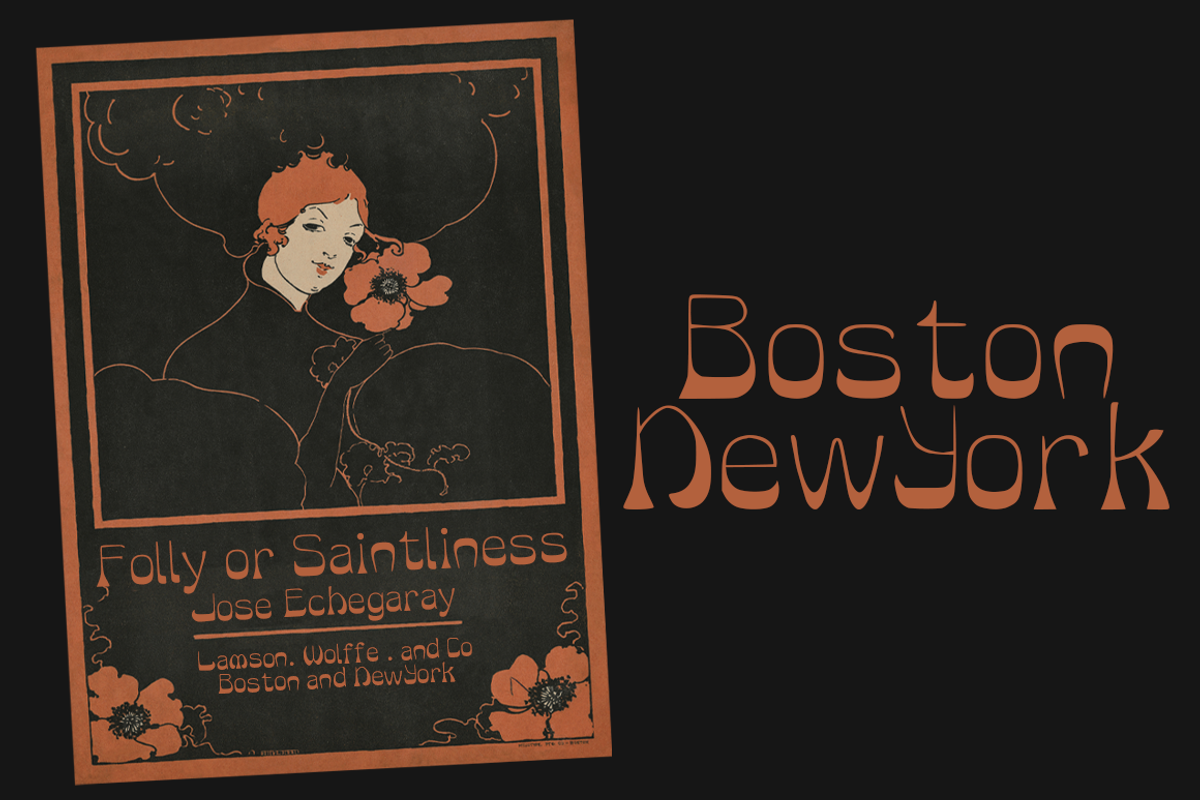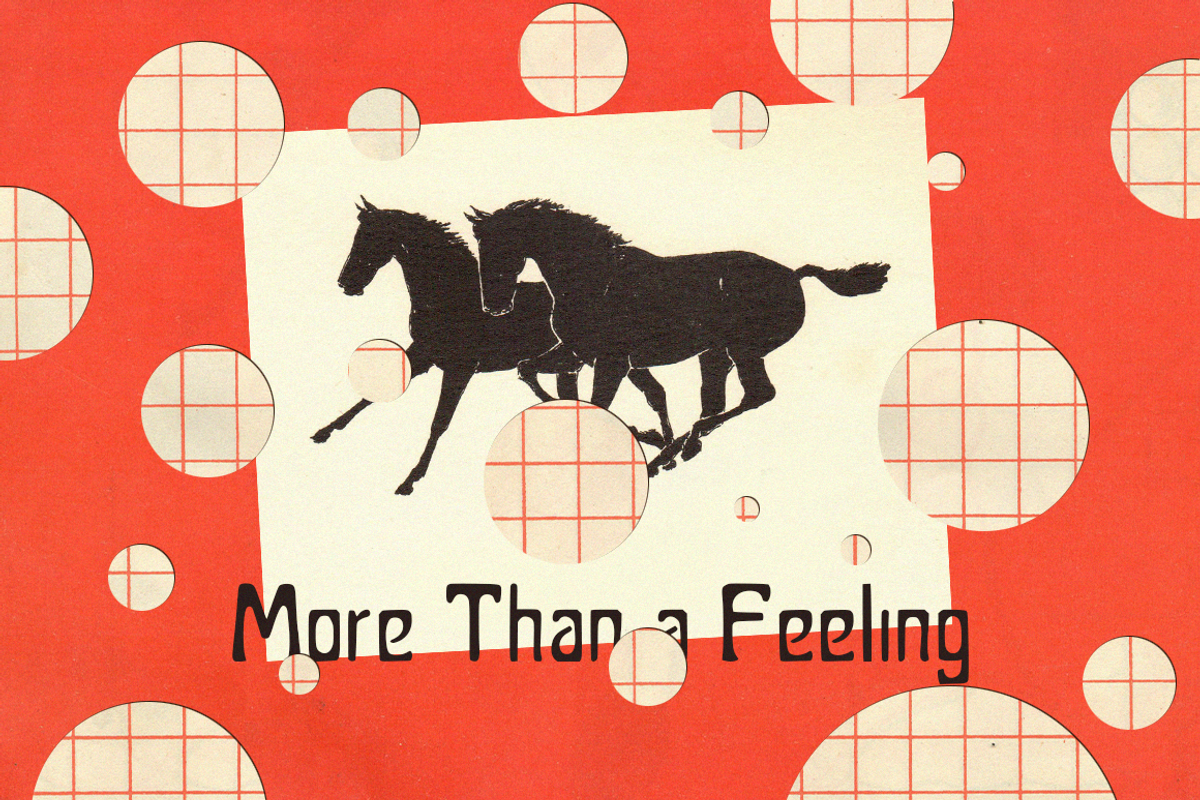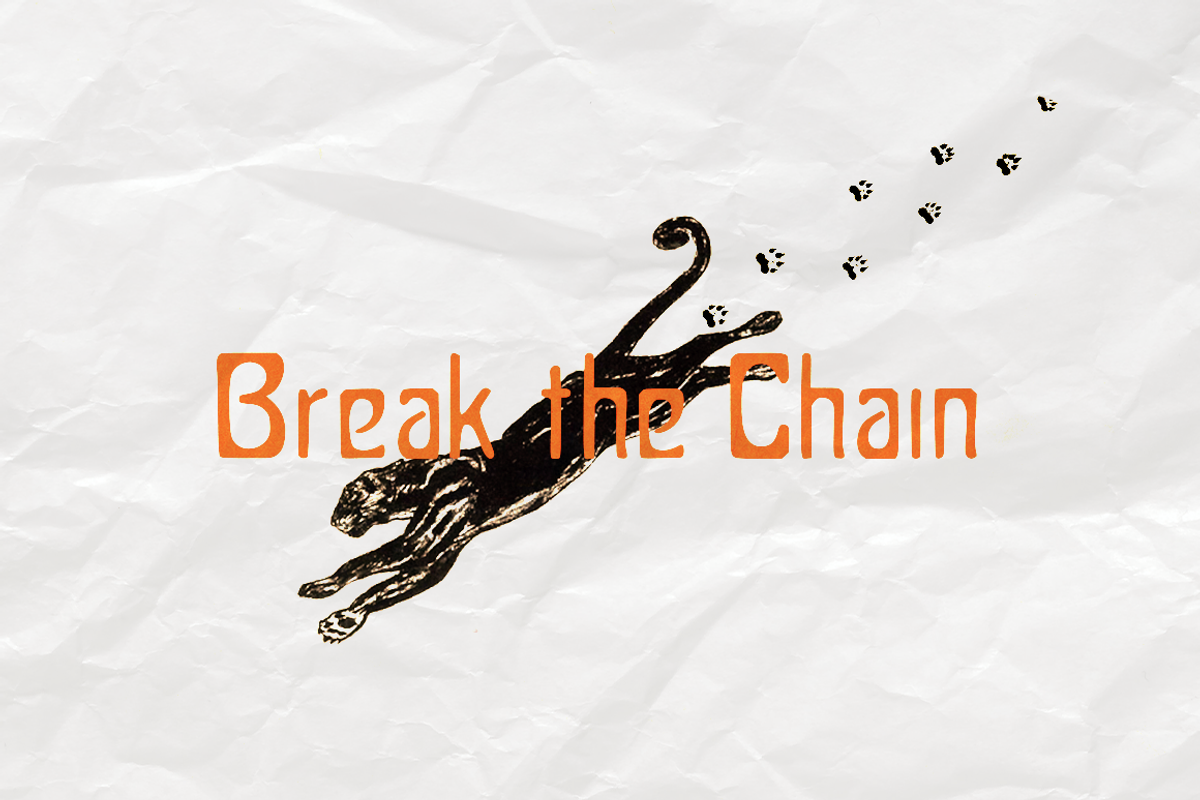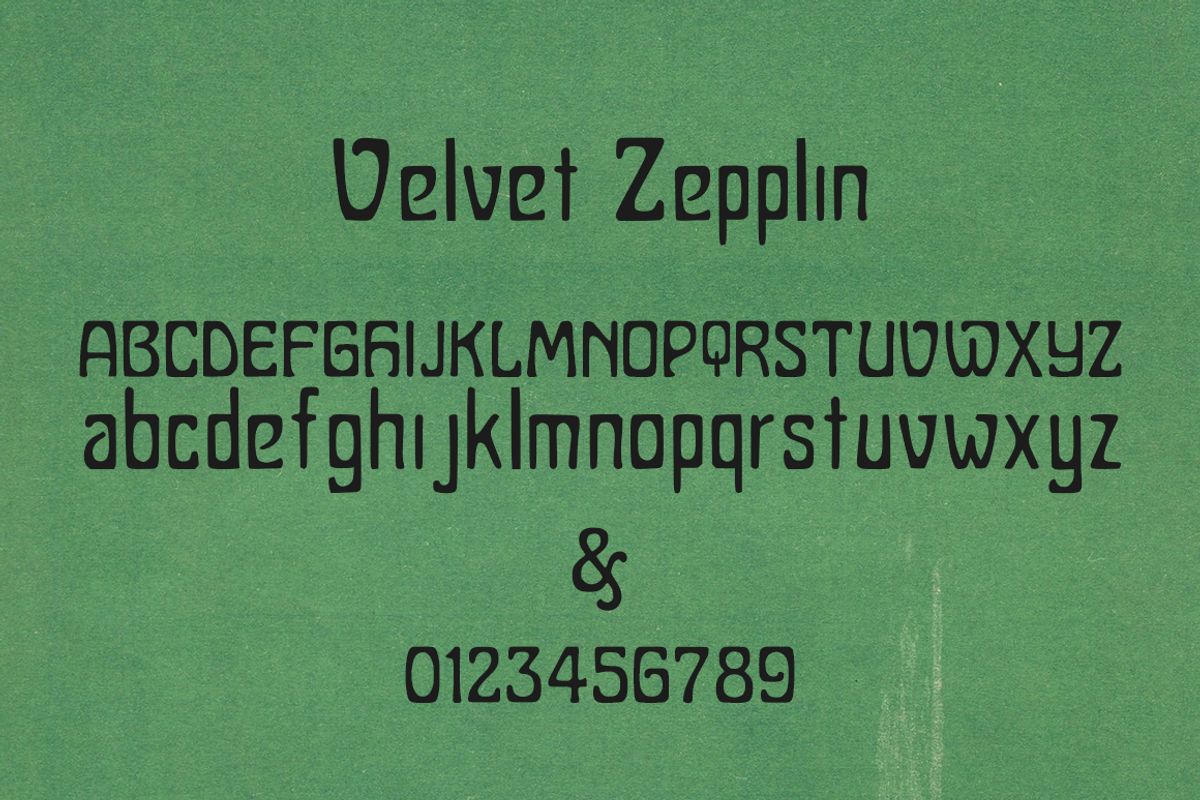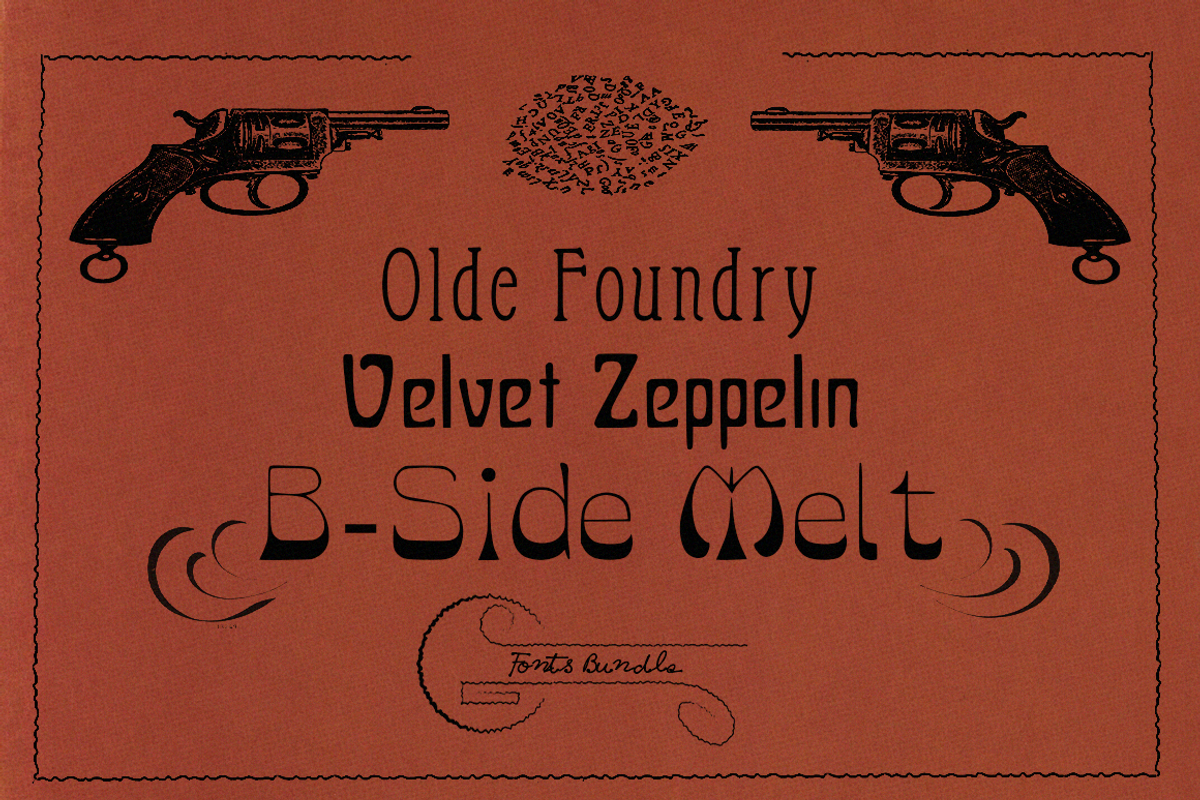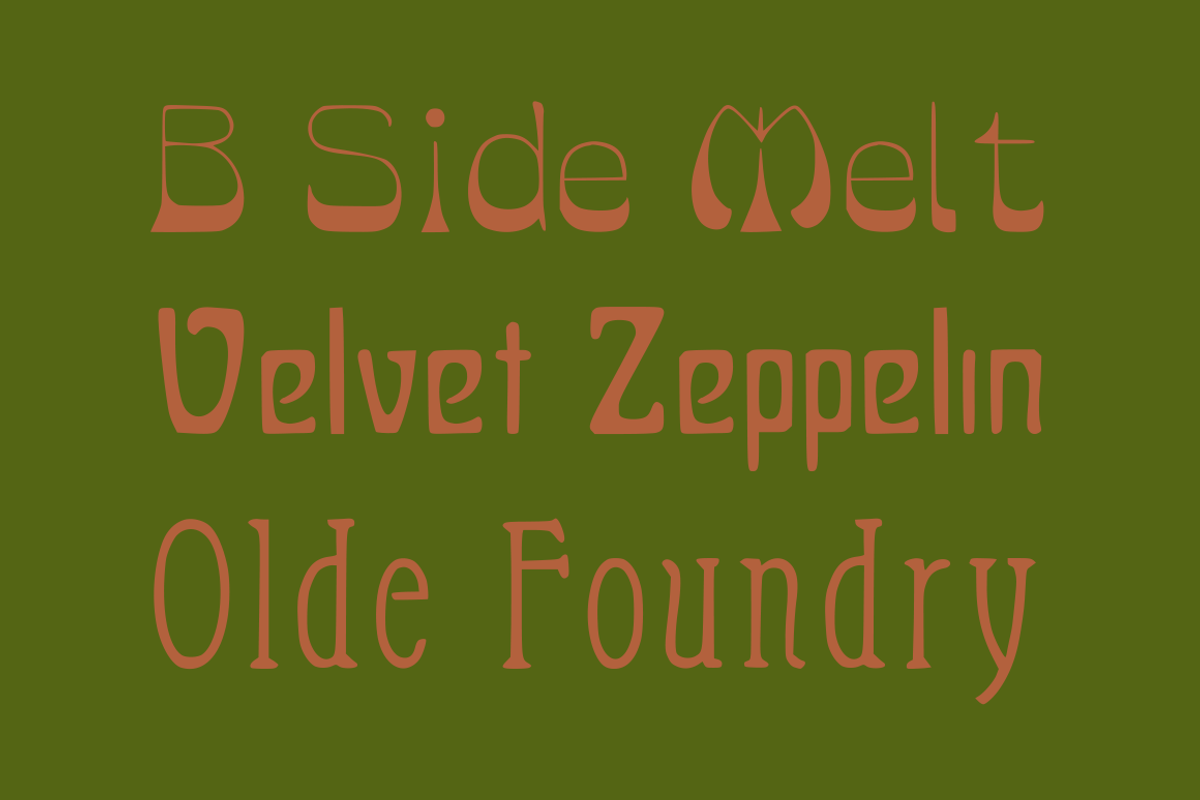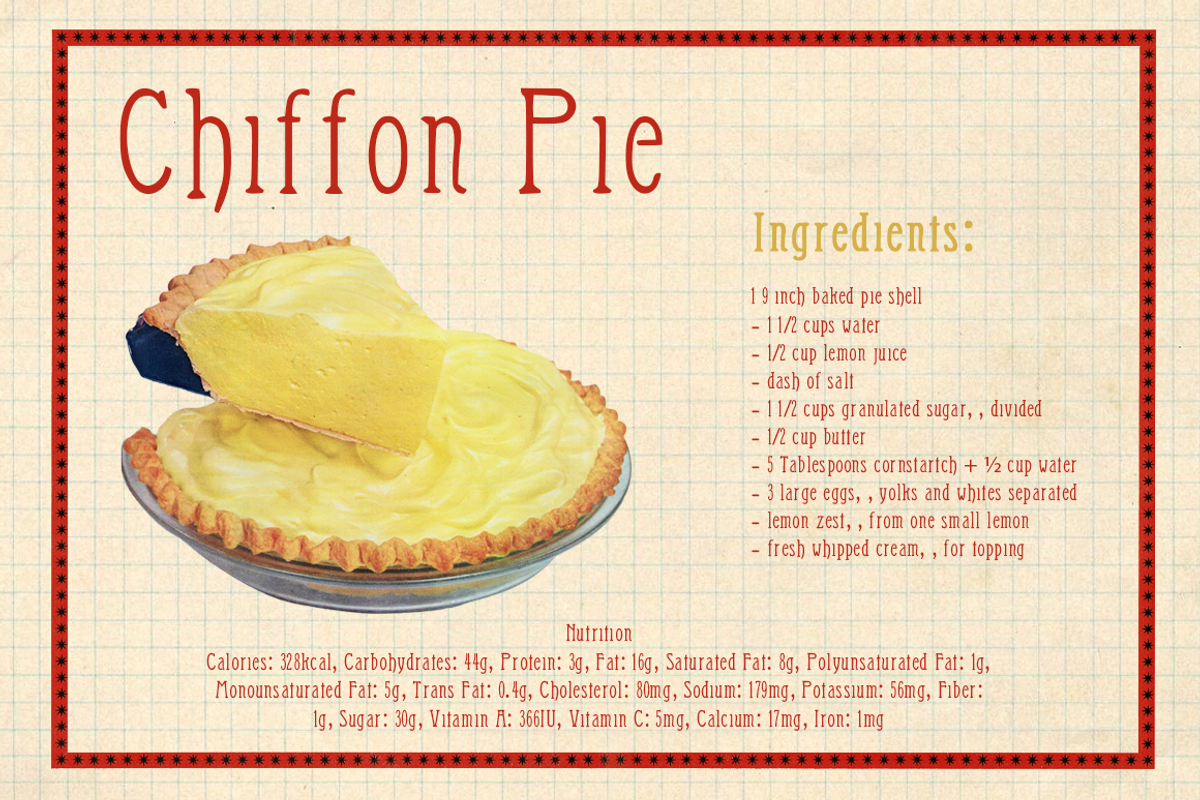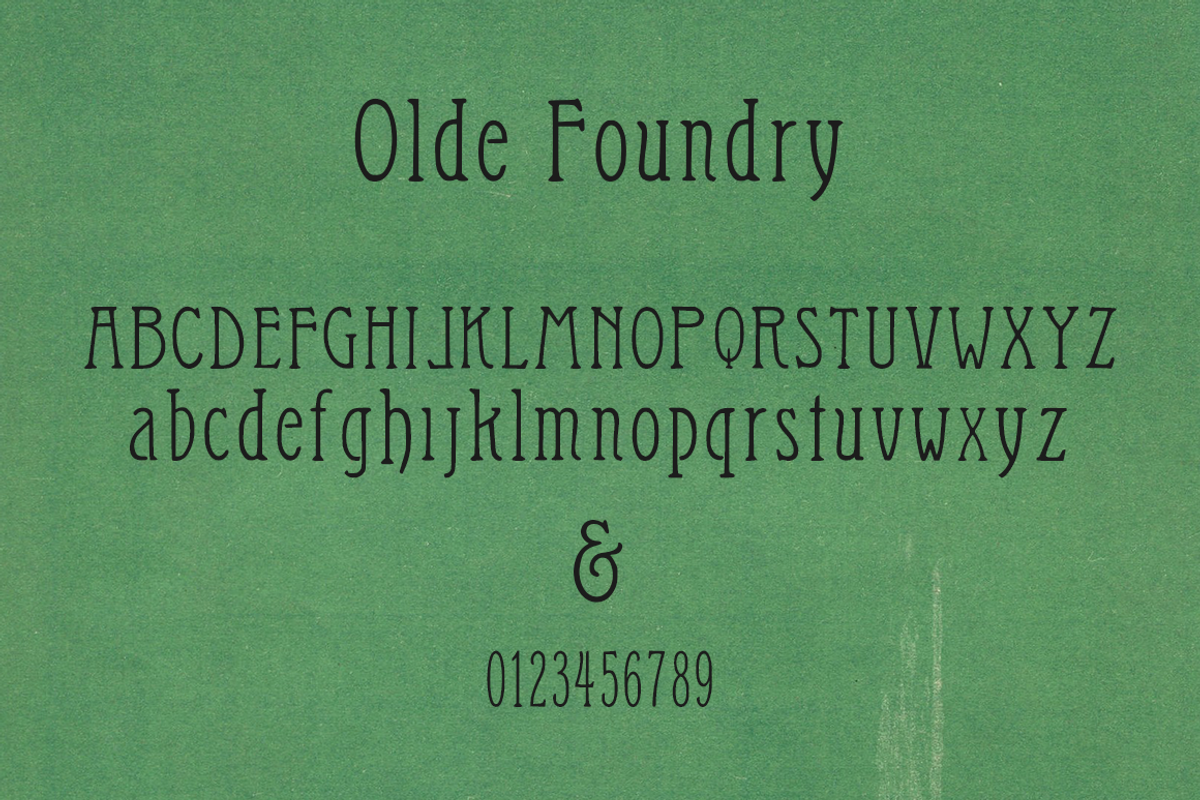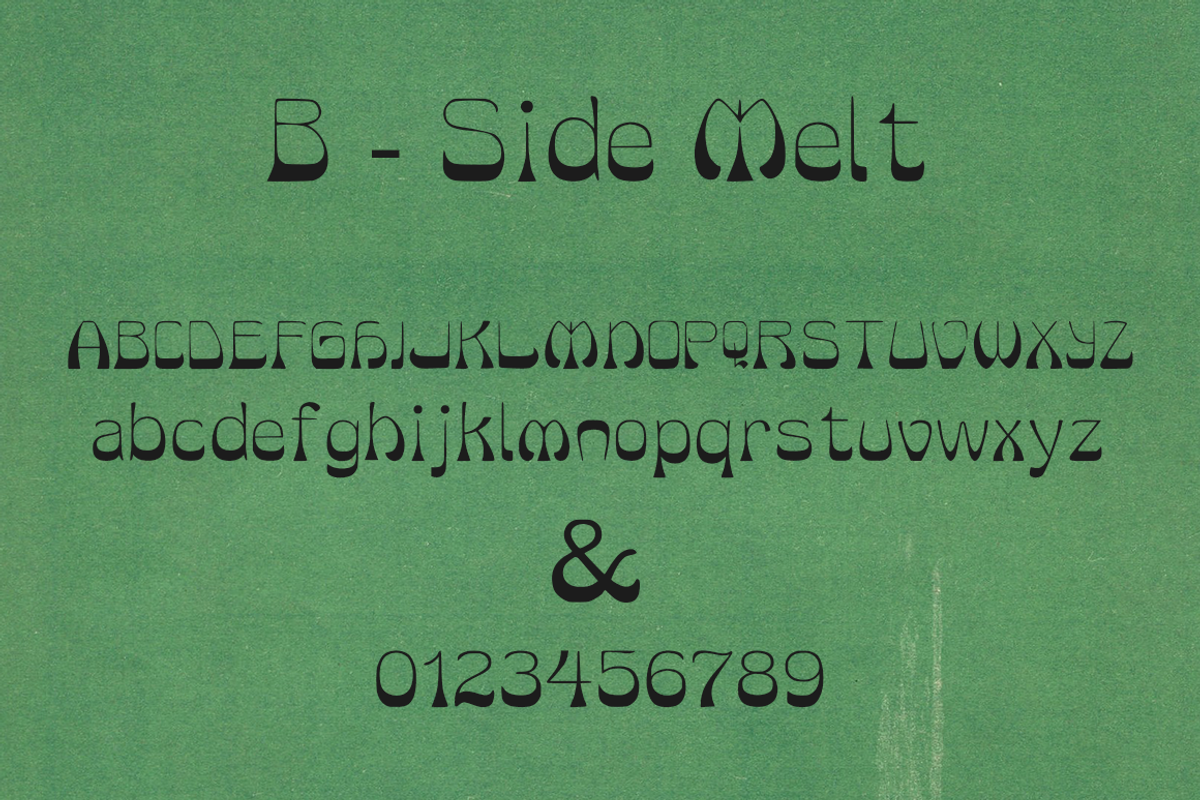
Dime Novel Display Bundle
Hey there! If you’re looking to inject some genuine vintage character into your designs, this mini-collection has you covered.
his bundle comes with three entirely distinct, hand-crafted display fonts that look awesome on merch, posters, logos, or any project that needs a bit of a throwback soul.
Olde Foundry – A tall, rustic, condensed font that feels like it was pulled straight off an old letterpress or industrial factory sign.
Velvet Zeppelin – Heavy, bold, and stylish. It’s got a great retro-rock, art-deco vibe that commands attention.
B-Side Melt – Super fluid and artistic with liquid-like curves. Perfect if you want that late 60s/70s psychedelic look